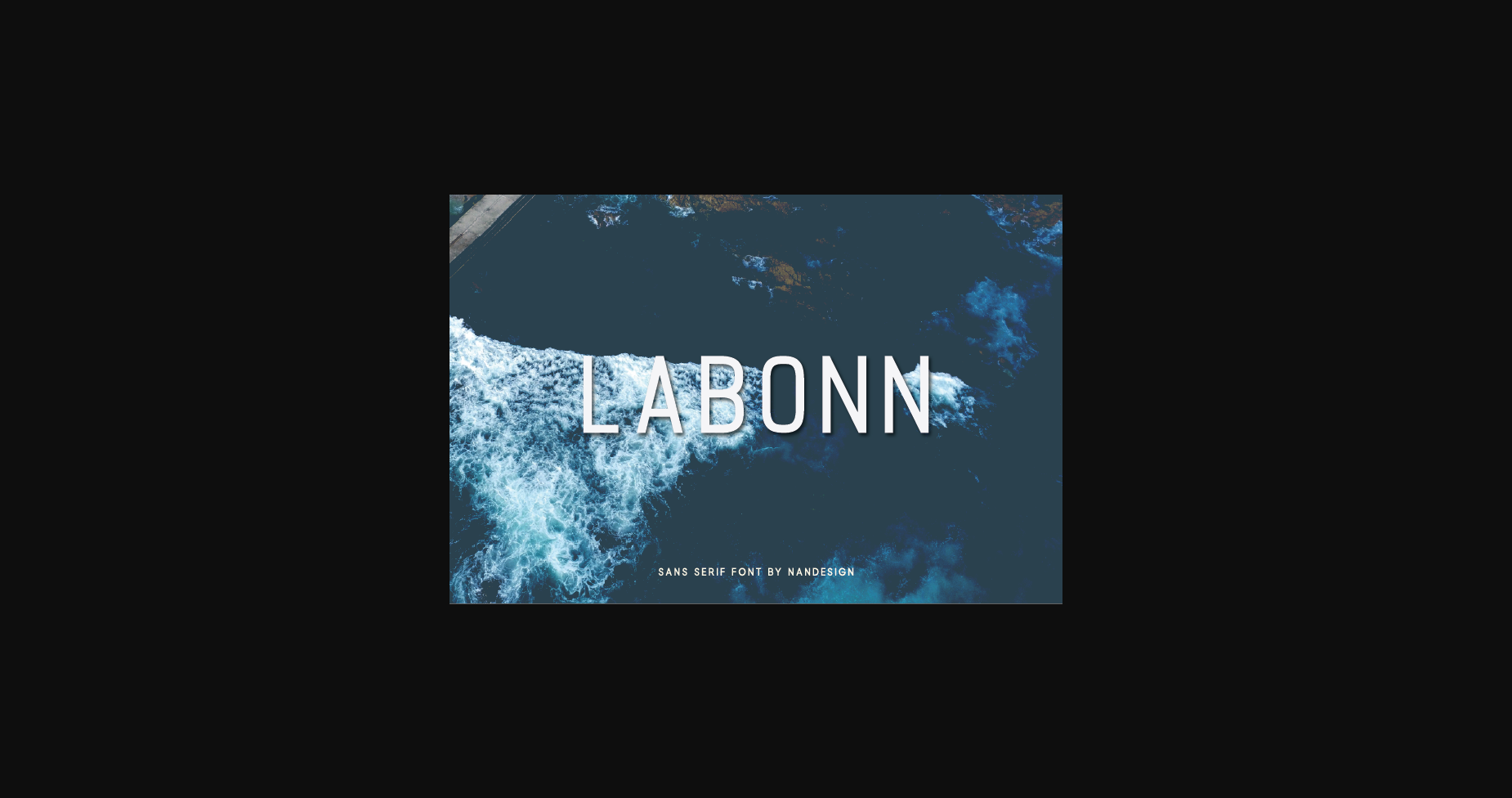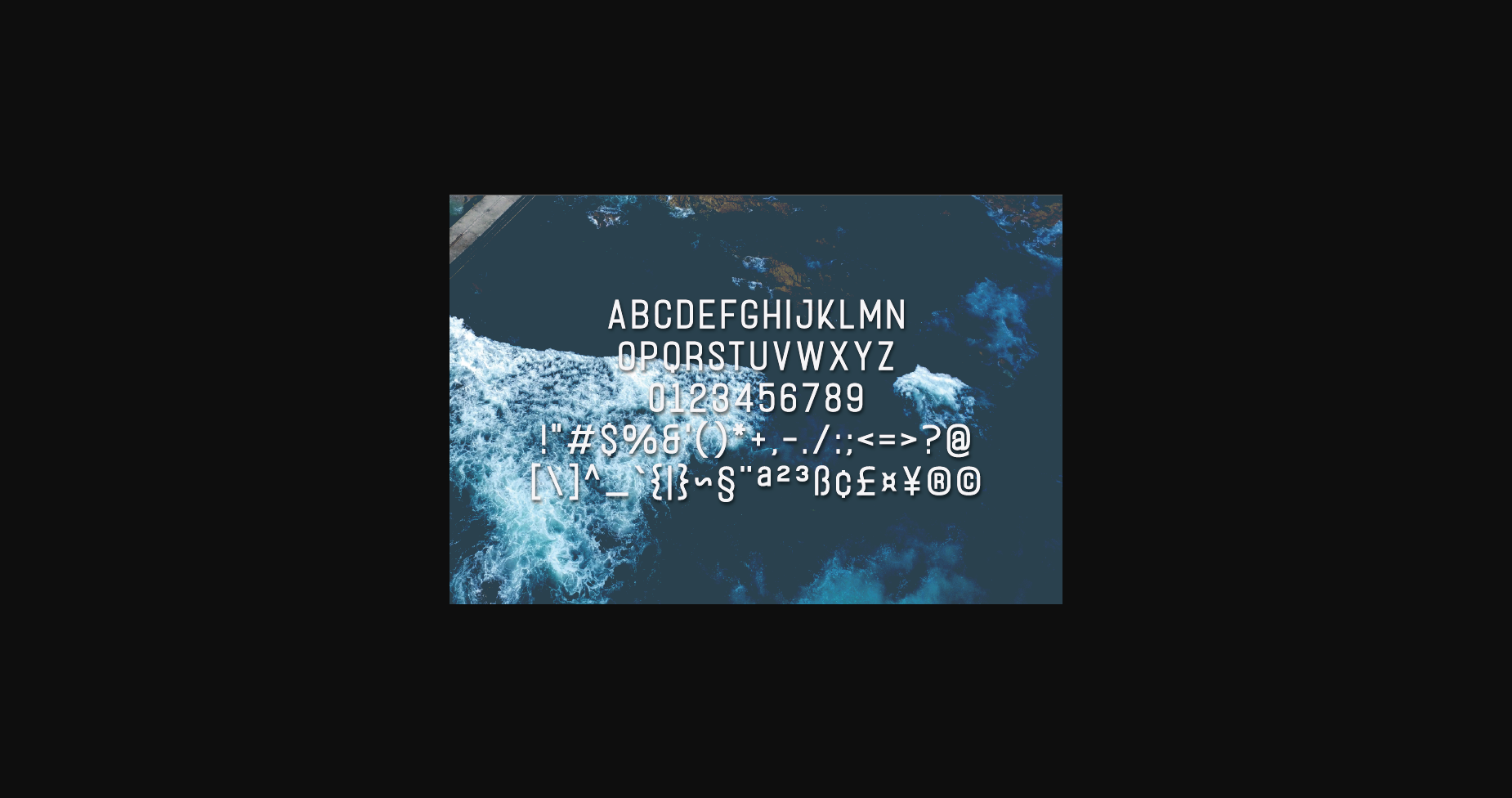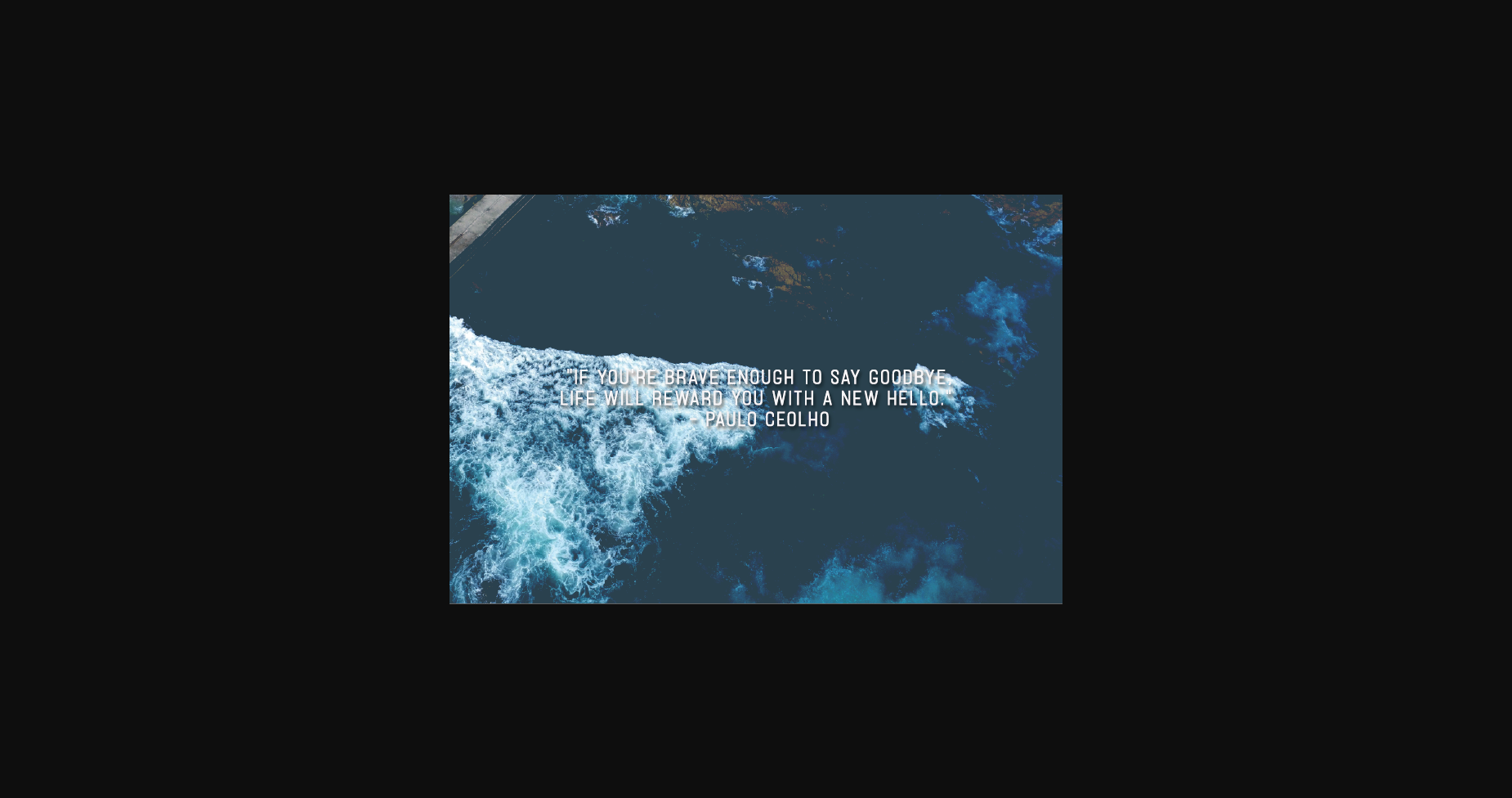
Labonn Font
About Labonn Font
Labonn is a neat and clean lettered sans serif font, designed to complement every project you’re working on.
Use it to create beautiful headings, gorgeous invitations, stunning logos, and so much more!